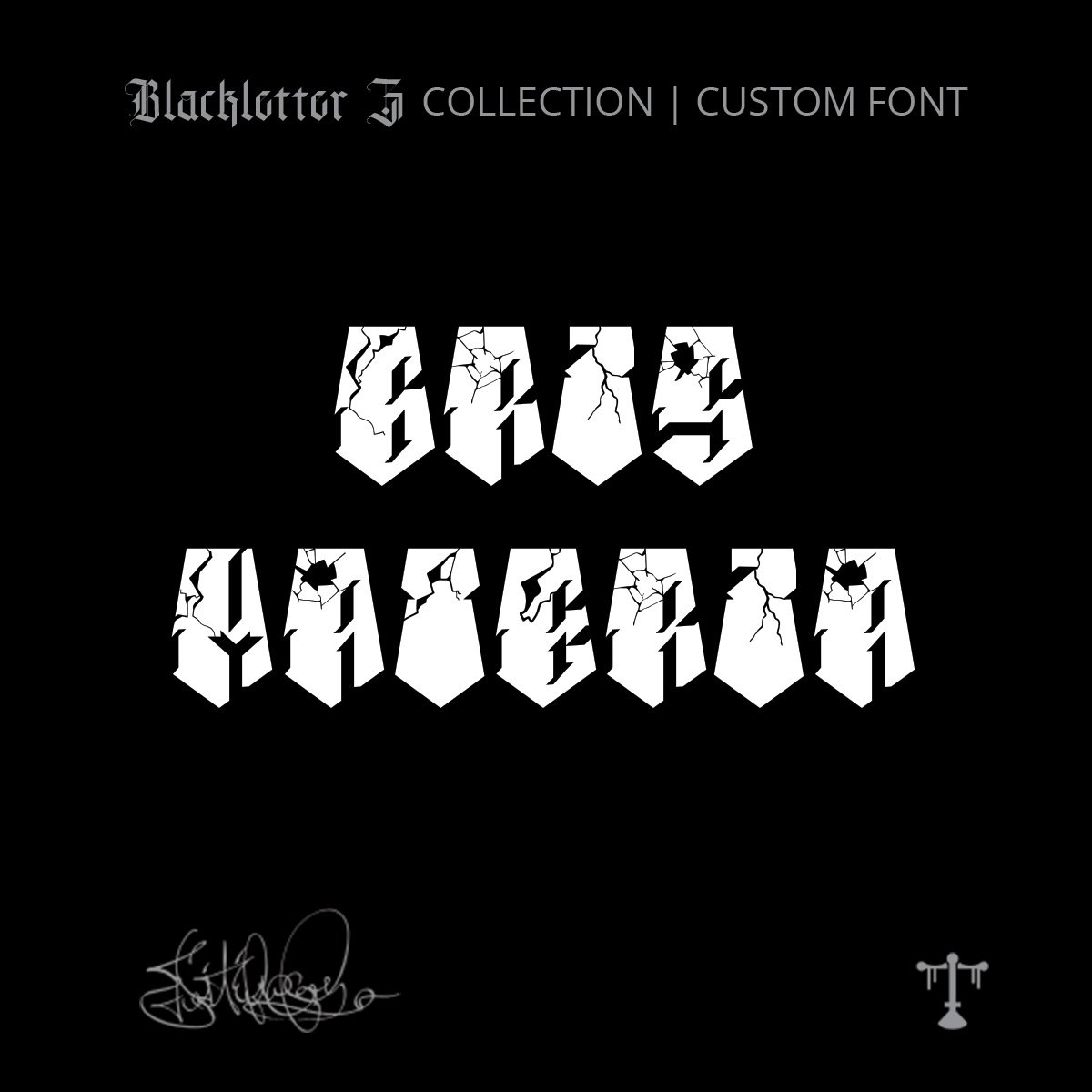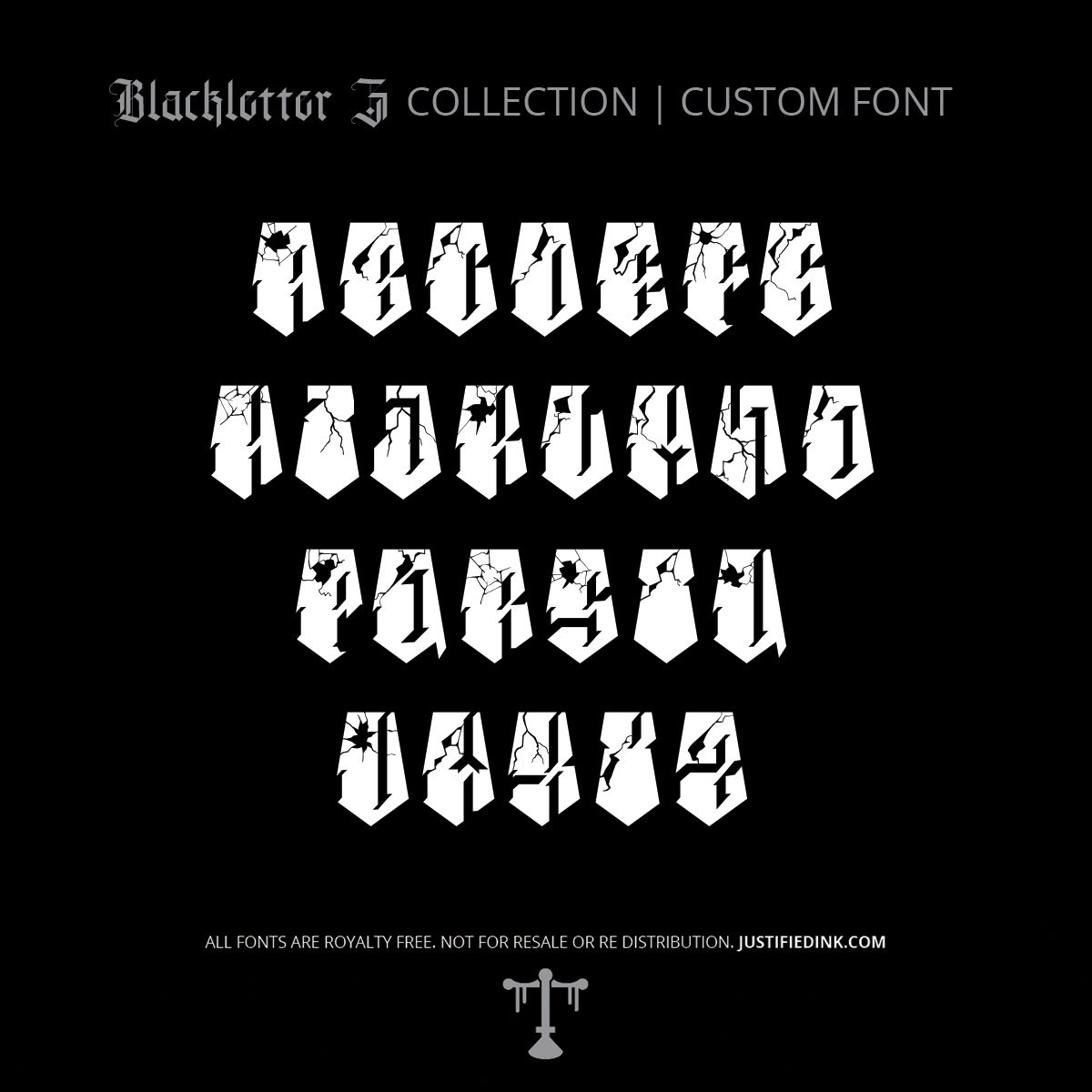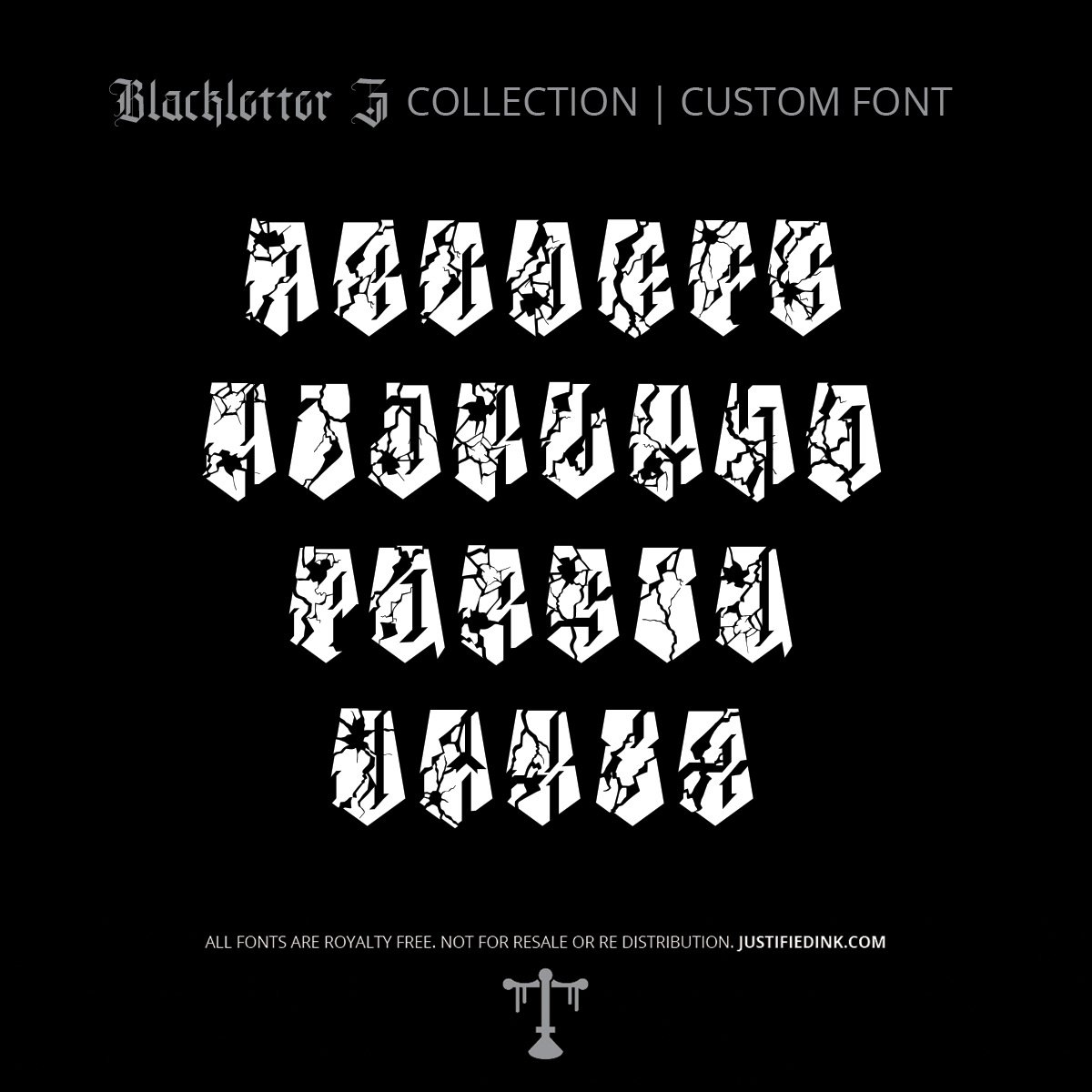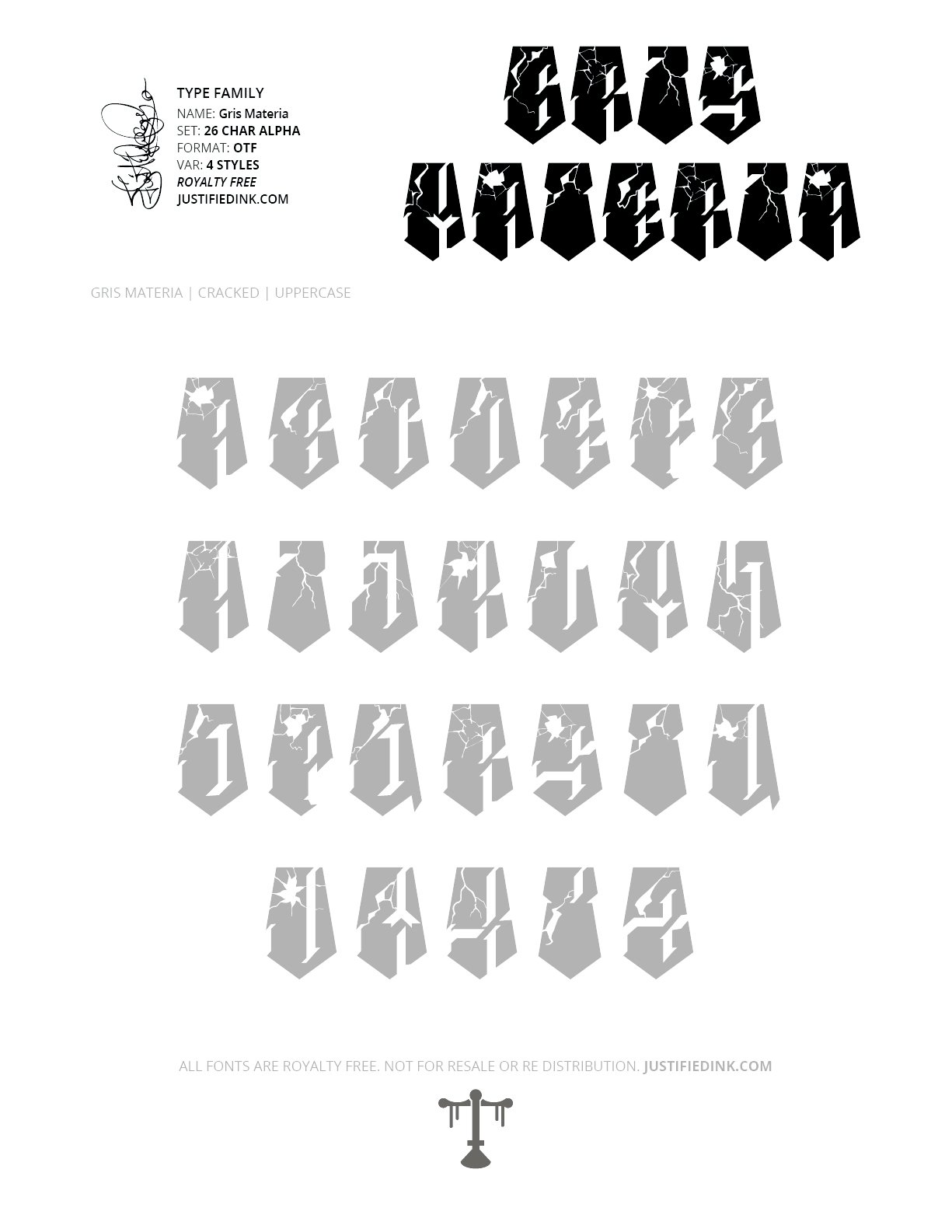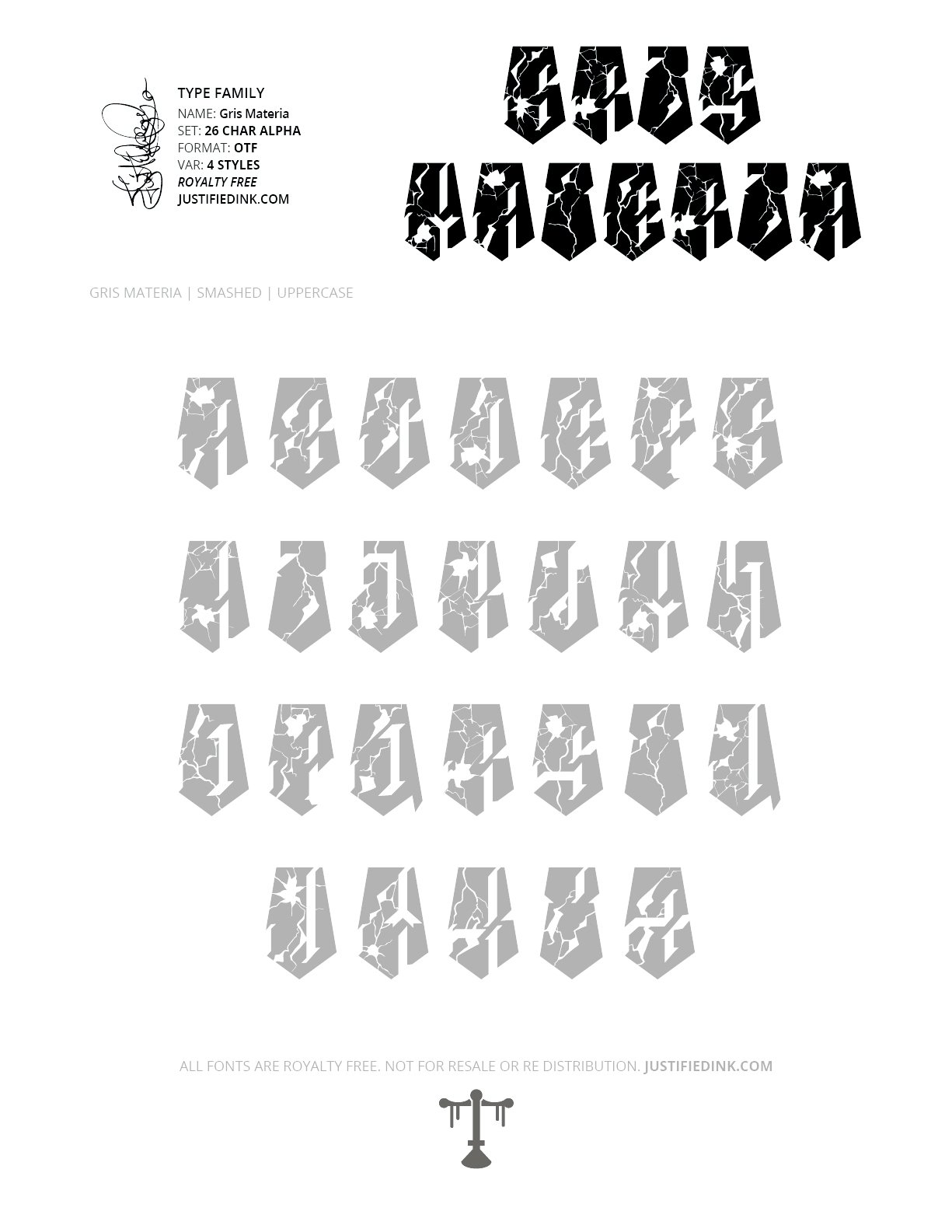
Gris Materia (4 styles) - Custom Font
Gris Materia (4 Styles) - Custom Font
Concrete Mind. Unbreakable Form.
Gris Materia draws its name from the Spanish phrase for "grey matter," a nod to both the concrete landscapes that shaped graffiti culture and the restless creativity housed within the mind itself. For years, Spanish color names became second nature through spray paint, and gris remained one of the most memorable. Here, concrete becomes both material and metaphor.
Inspired by traditional Chicano block lettering, Gris Materia transforms those powerful letterforms into monumental structures carved from cement. Every character feels weighty, architectural, and unapologetically solid—like typography poured into a mold rather than drawn with ink.
The collection expands beyond a single alphabet with four progressive styles that tell the story of creation and collapse. Beginning with clean, intact forms, the letters slowly fracture, crack, and finally shatter into weathered ruins, as though struck again and again by time, pressure, and the swing of a demolition hammer.
Gris Materia Font by Justified Ink is built for designers, muralists, tattoo artists, apparel brands, and creators looking for bold architectural lettering with unmistakable presence.